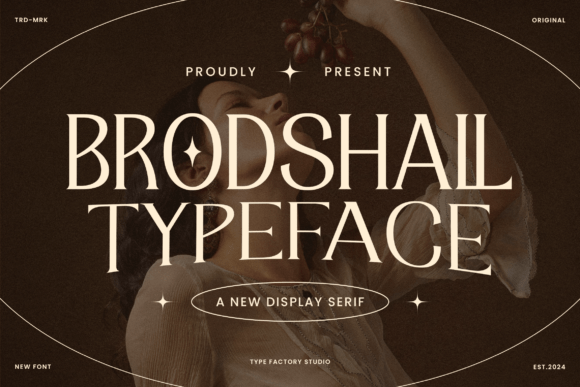
Introduction to Brodshall Font
Brodshall is a display serif typeface designed with refined proportions and clear contrast between thick and thin strokes.
Its structure balances classical serif influence with contemporary spacing, making it suitable for modern visual compositions The letterforms feature clean serifs, controlled curves, and distinctive uppercase construction that create strong presence in headline settings.
Key Features of Brodshall Font